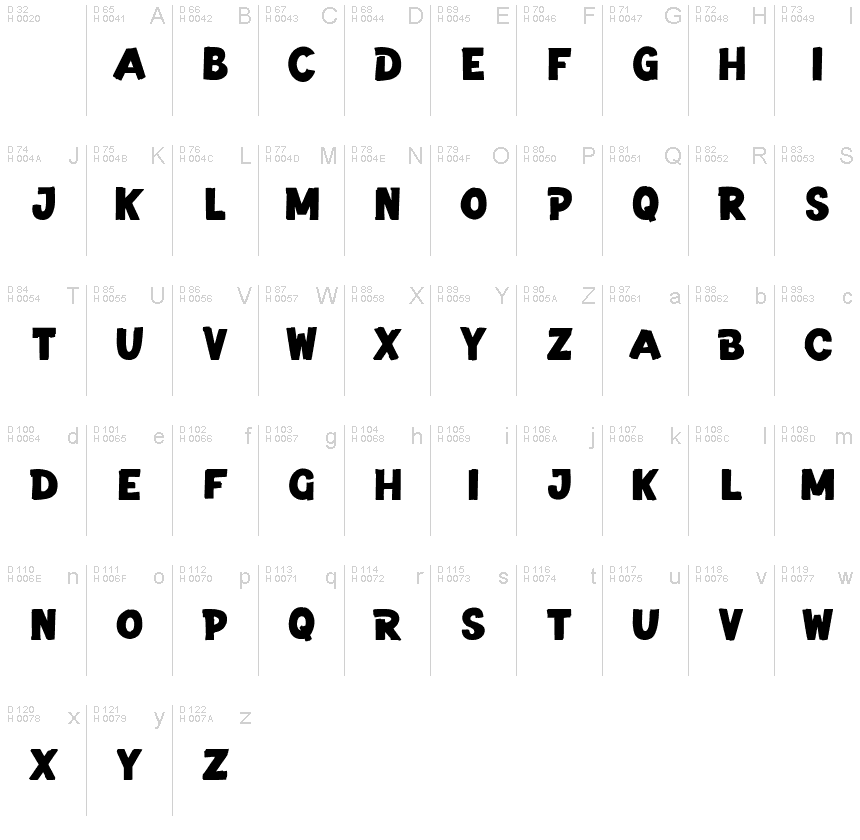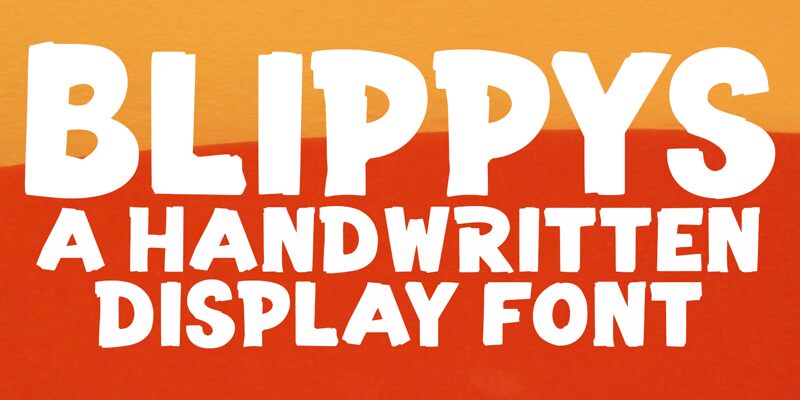
Blippys Free Regular
Blippys, designed by Maulana Creative, is a fun and playful display font with an extra-bold weight that will make your words pop! With its cartoon-style design, Blippys is perfect for projects that require a touch of whimsy and creativity. Use it to create eye-catching headlines for children's books, posters, or even comic book covers. Its bold lettering also makes it ideal for creating logos that demand attention. Whether you're looking to inject some personality into your next project or make your brand stand out from the crowd, Blippys is the perfect font choice.